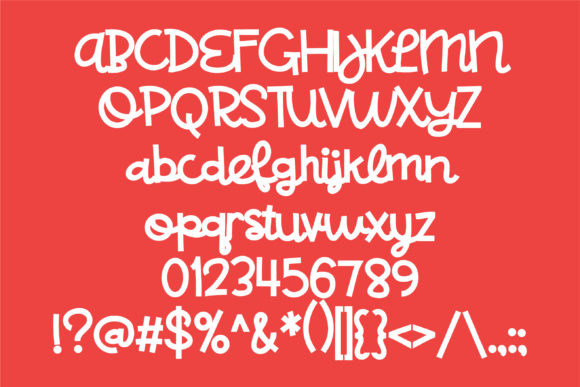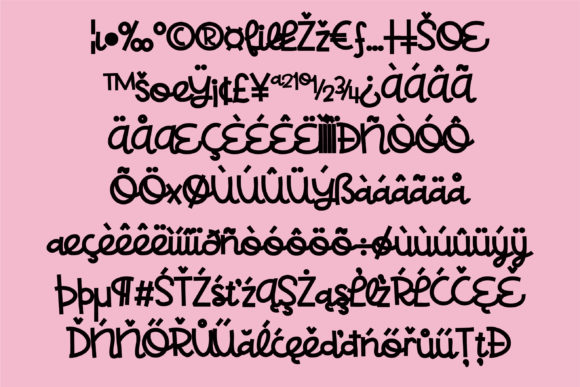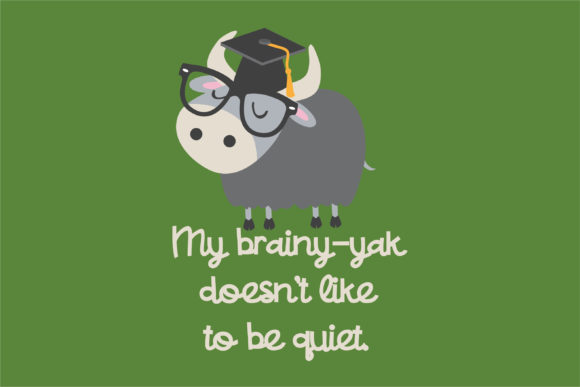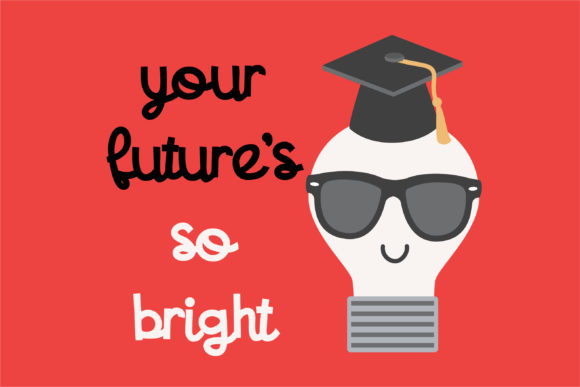
Yakety Script Font
About Yakety Script Font
Yakety Script is a fun and whimsical handwritten font. It will turn any comic-themed design project into an eye catcher!